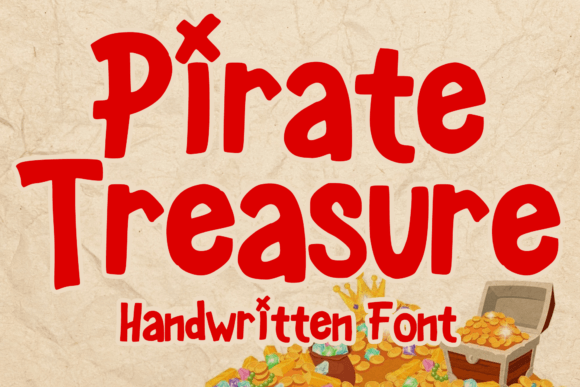
Pirate Treasure: A Playful Display Font for Digital Branding
As a UI designer who ships landing pages, SaaS dashboards, and conversion-optimized e-commerce sites, I’m constantly balancing personality with performance. That’s why Pirate Treasure stands out—not as a novelty, but as a purpose-built display font that delivers tone without sacrificing digital clarity. It’s not a script or serif font, nor is it a neutral sans serif. Pirate Treasure is a bold, hand-drawn-inspired display typeface with swashy terminals, uneven baseline rhythm, and subtle nautical flourishes—think rope knots in the ‘R’, wave-like curves in the ‘S’, and anchor-shaped serifs on uppercase letters. It reads like adventure, but renders cleanly across modern browsers and devices.
Where Pirate Treasure Earns Its Place in Web Layouts
This isn’t a font for body copy or form labels—and it shouldn’t be. Pirate Treasure shines where visual hierarchy needs an instant emotional hook: hero section headlines, product launch banners, course title cards, and branded CTA buttons. On a coaching website, pairing Pirate Treasure with a clean, airy sans serif like Inter or Manrope creates immediate contrast—your headline grabs attention, your subhead and value props guide the eye downward. In an online boutique selling handmade goods, Pirate Treasure on a banner (“Treasure Hunt Sale—24 Hours Only!”) adds playful urgency without undermining trust. It works equally well on portfolio sites (a creative director’s name in Pirate Treasure over a muted gradient), blog headers (“The Daily Compass: Design Tips & Tactics”), or even as decorative accents in animated SVG overlays on app onboarding screens.
Readability & Responsiveness: Practical Considerations
Yes, Pirate Treasure is decorative—but it’s engineered for legibility at scale. At 48px and above on desktop, its open counters and generous x-height hold up beautifully against image overlays or textured backgrounds. On mobile, I recommend using it only for primary headlines (not buttons or navigation), sized no smaller than 36px, and always with sufficient letter-spacing (0.05em minimum) to prevent character crowding. Avoid stacking it over busy photos; instead, place it on solid color blocks or subtle duotone gradients. For dark mode interfaces, use a crisp off-white (#f8f8f8) rather than pure white to reduce glare. And never stretch or skew the font—it breaks the rhythm that makes Pirate Treasure feel intentional, not chaotic.
Font Pairing for Digital Balance
Every strong display font needs a reliable counterpart—and Pirate Treasure pairs exceptionally well with both modern sans serifs and warm, humanist serifs. For SaaS or tech-adjacent brands, pair it with Inter Bold (for headings) and Inter Regular (for body)—the geometric neutrality grounds the playfulness. For editorial or lifestyle sites, try Pirate Treasure with Playfair Display Italic for pull quotes or author bylines—its high contrast and elegant stress complement Pirate Treasure’s whimsy without competing. Avoid pairing it with other decorative fonts (no second script or slab serif), and steer clear of ultra-thin or condensed sans serifs—they’ll visually recede too far. Consistency matters: use Pirate Treasure *only* for top-level hierarchy (H1, featured CTA text, logo lockups), then lock in one supporting family for everything else.
When to Reach for Pirate Treasure—And When to Pause
Use it when your brand voice leans into curiosity, creativity, or lighthearted authority—like a design educator launching a new workshop series, a children’s learning app introducing a pirate-themed module, or a craft brewery naming a limited-edition IPA (“Blackbeard’s Bounty”). Don’t use it for legal disclaimers, pricing tables, or accessibility-critical interface text (error messages, form instructions). It’s also not ideal for long-form editorial headers where gravitas outweighs charm—save it for the “Meet the Crew” page, not the “Terms of Service.” One pro tip: test Pirate Treasure in your live Figma prototype before finalizing. Drop it into a real hero section with actual content length and background treatment—not just mockup lorem ipsum. You’ll instantly see how its rhythm supports (or disrupts) your layout’s breathing room.
Ultimately, Pirate Treasure isn’t about turning every site into a cartoon. It’s about giving digital experiences a memorable, human signature—one that signals intentionality, not randomness. In a landscape saturated with safe, algorithmically optimized typography, choosing Pirate Treasure says you value distinctiveness *and* usability. It’s a display font that earns its spotlight—not by shouting, but by anchoring your message in something unmistakably, delightfully yours.